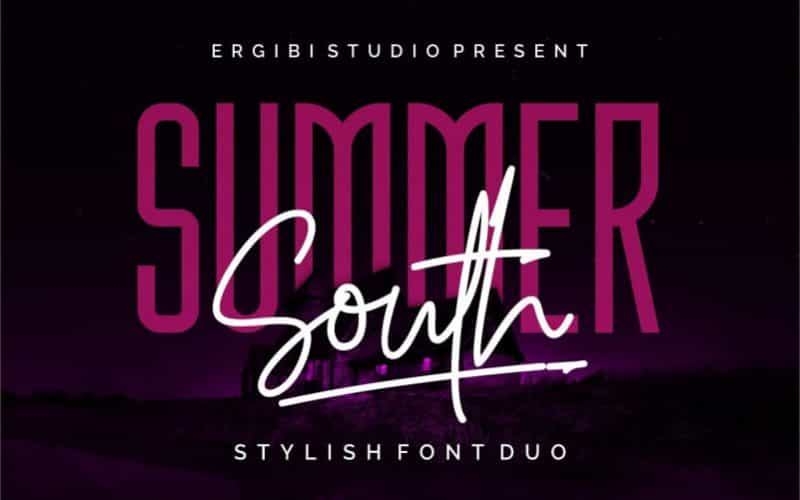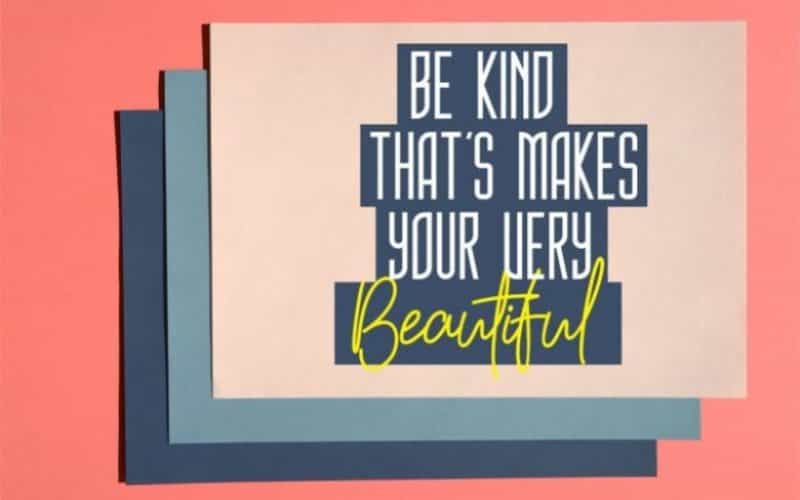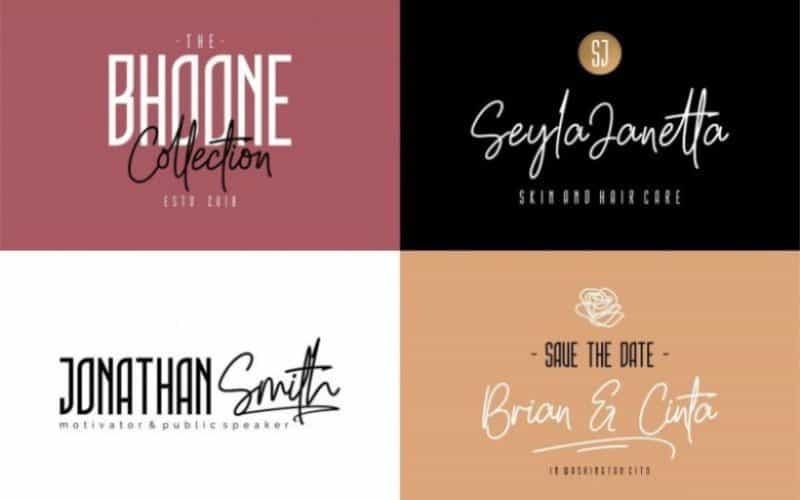
Summer South is a combination of 2 handwritten fonts with sans being the one that has a unique style and classy touch. This font is the right fit for your creative projects like watermarks on photography, and great for logos & branding, photography, invitations, watermarks, advertisements, product designs, tools write, wedding designs, labels, product packaging, special events or anything that needs to be written by hand with a combination of Sans.